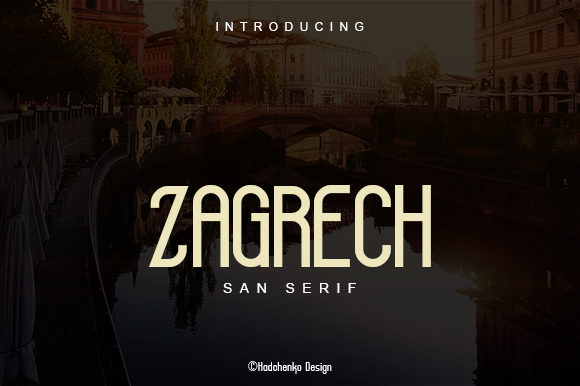
Dive into the world of vintage charm with Zagrech, a captivating sans serif font that oozes individuality and timeless elegance. Crafted with meticulous attention to detail by the visionary saputro.hadi07, Zagrech is more than just a font; it's an artistic journey that transports you to an era of yesteryear.
With its intricate curves and playful strokes, Zagrech effortlessly blends modernity with a touch of nostalgia. Each character carries a distinct personality, adding a touch of whimsy and charm to your creative endeavors, be it branding, packaging design, or social media posts.
Zagrech's versatility knows no bounds. Whether you're a seasoned designer or just starting out, this font will elevate your projects to new heights. Its effortless readability makes it perfect for body text, while its eye-catching details shine through in headlines and logos.
Embrace the allure of the past with Zagrech. Let your imagination run wild as you explore the endless possibilities this font offers. Unleash your creativity and craft designs that captivate and inspire, leaving an unforgettable impression on your audience.